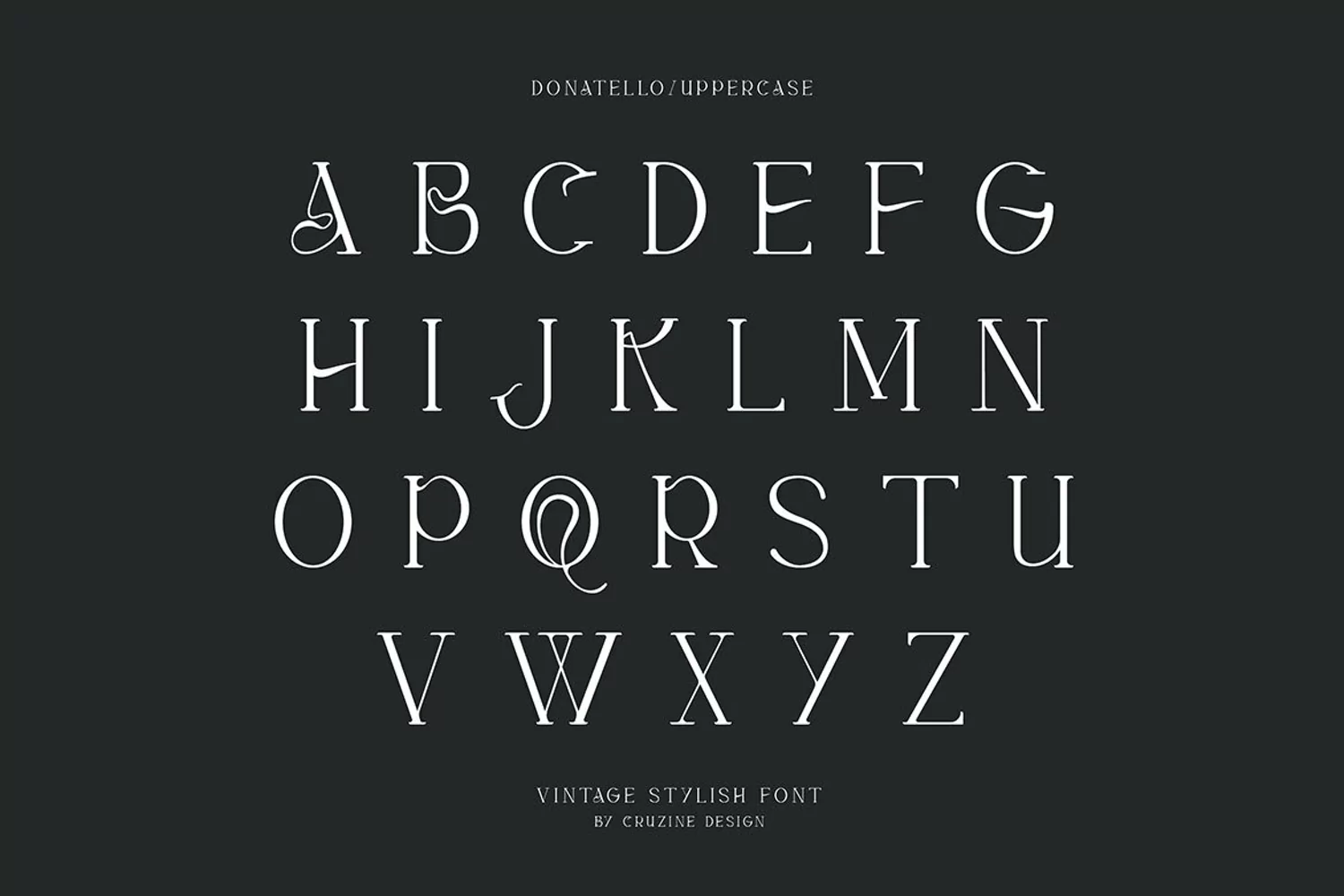
Trendy or modern style serif font for your fancy projects. Elegant and classic style on Donatello font will be great for any branding project. Enjoy :)